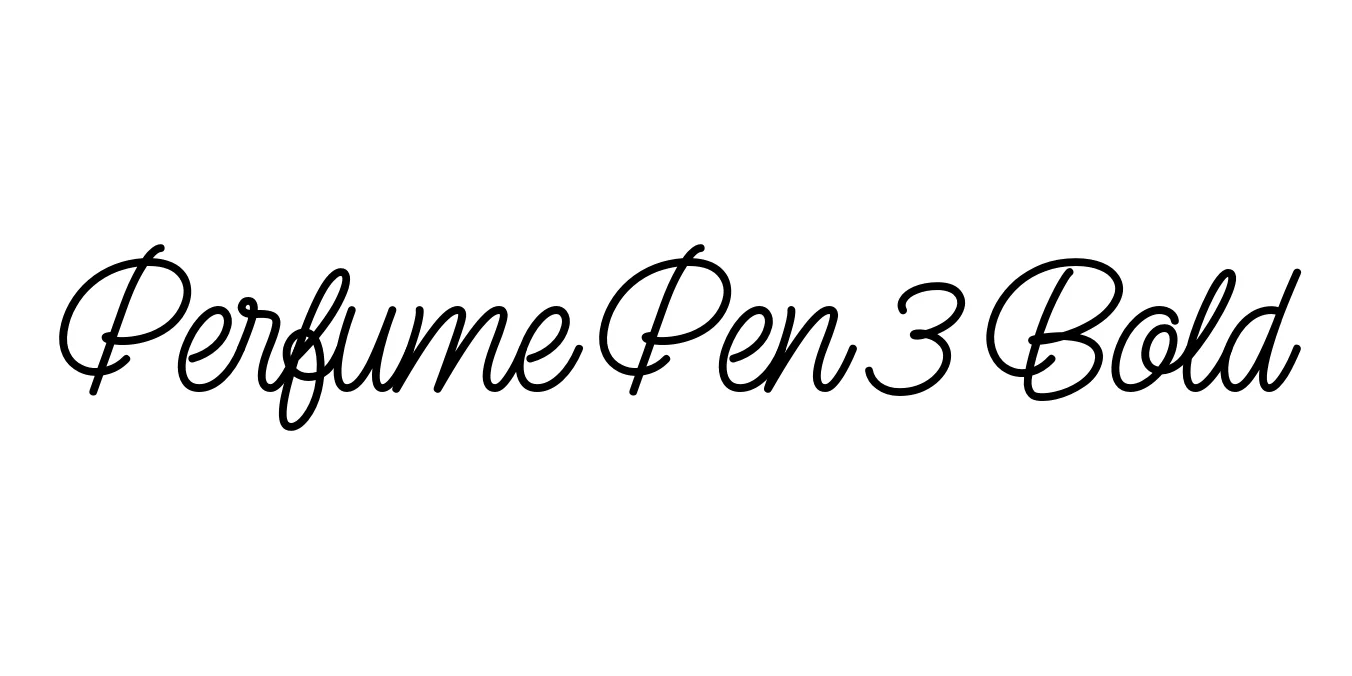
Perfume Pen 3 Bold
Designed by Eko Bimantara
Perfume Pen 3 Bold is a sophisticated handwritten script that captures the fluid motion and organic texture of a felt-tip pen. This specific bold iteration of the Perfume Pen series focuses on legibility and high impact, making it a standout choice for designers looking to inject a sense of personal character into their work. Its thick, rhythmic strokes and natural ligatures emulate the effortless grace of professional calligraphy while maintaining a modern, approachable feel.
The typeface is meticulously crafted to function seamlessly across both digital and print mediums. By balancing bold weight with elegant curves, it provides a versatile solution for high-end fashion labels, artisanal food packaging, and digital branding. Its personality-driven design ensures that any text appears custom-made, providing a bespoke aesthetic that resonates with audiences seeking authenticity and luxury.
Perfume Pen 3 Bold Best Uses
Ideal for creating unique signature-style logos for boutique brands.
Perfect for high-end cosmetic, perfume, and artisanal product labels.
Great for attention-grabbing quotes and lifestyle personality posts.
Adds a premium touch to wedding invitations and personalized greeting cards.